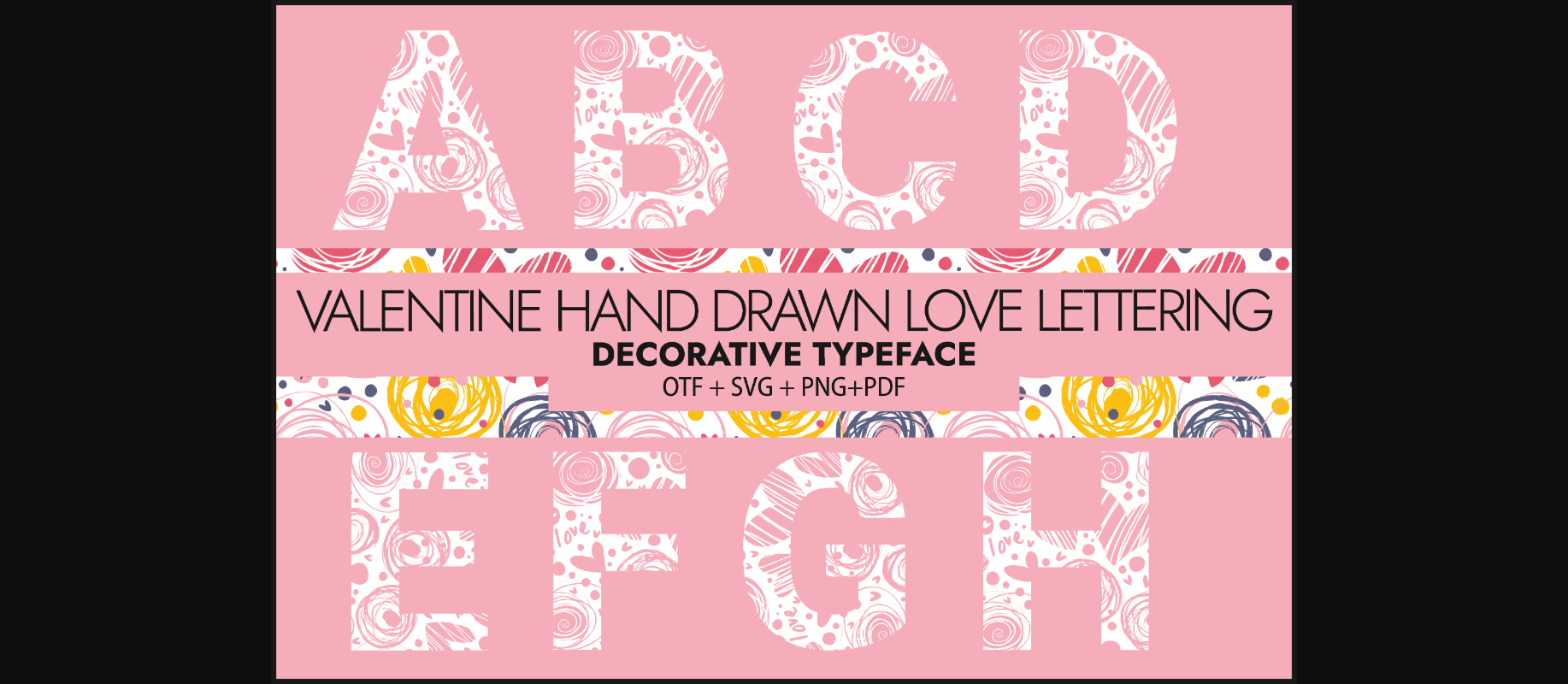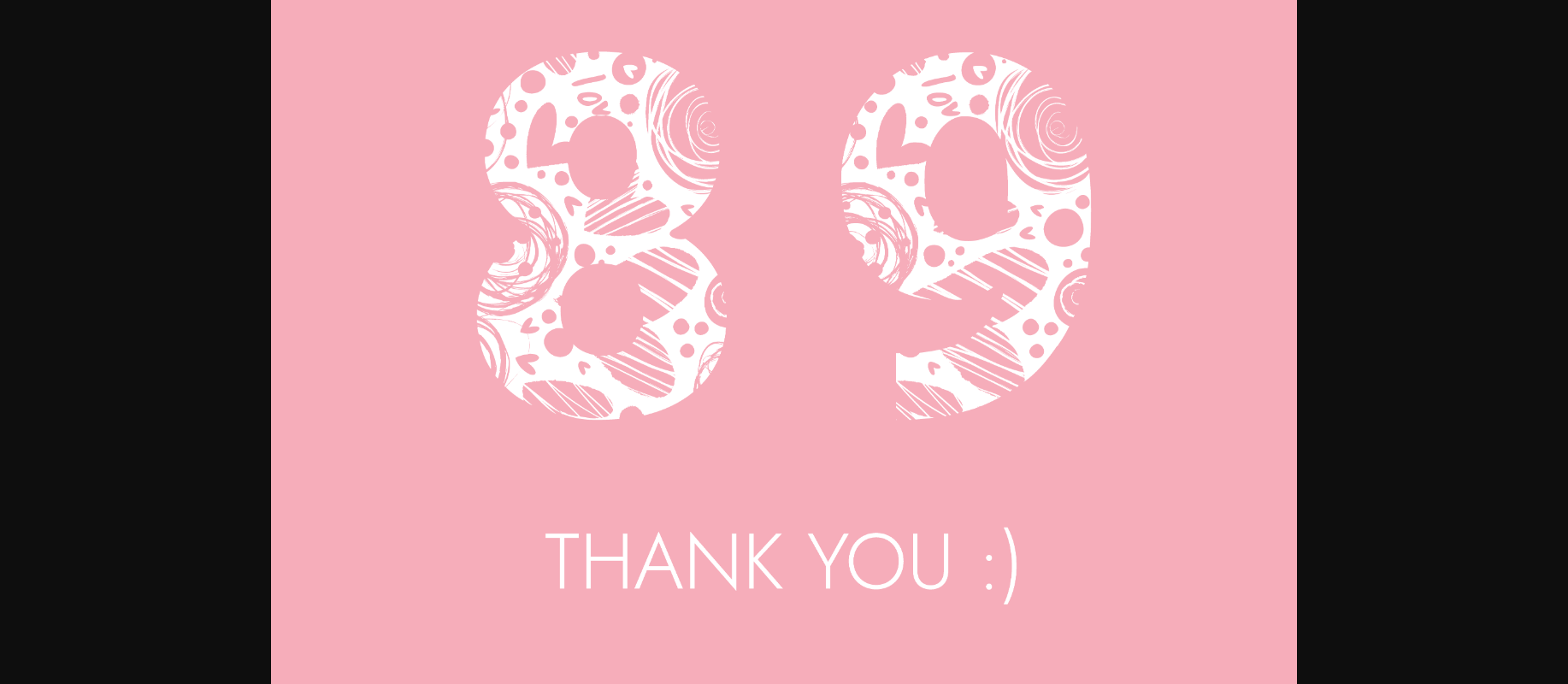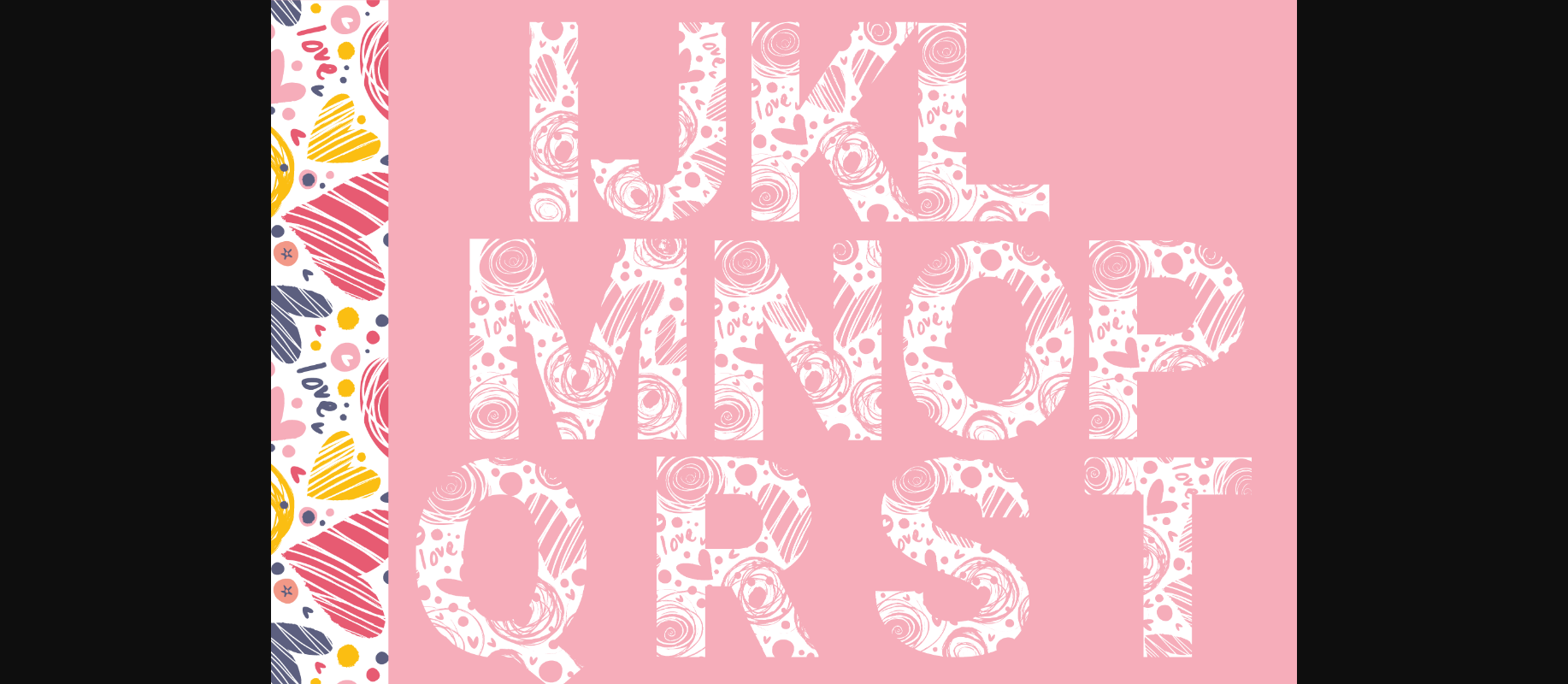
About Valentine Hand Drawn Font
Valentine Hand Drawn is a delicate constructed and highly detailed decorative font. Whatever the topic, this font will be a wonderful asset to your font library, as it has the potential to enhance any creation.